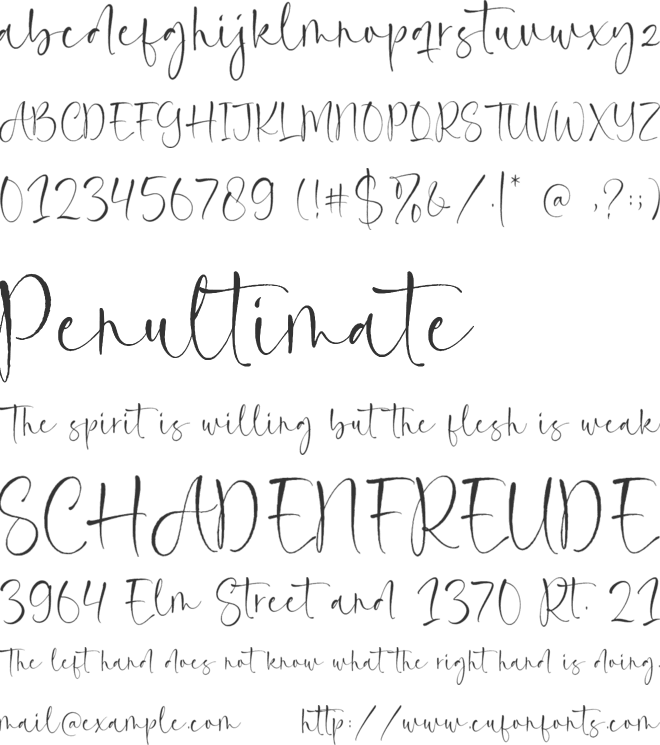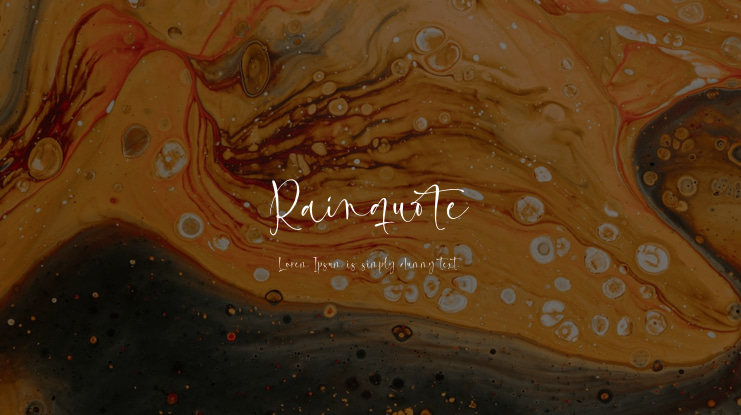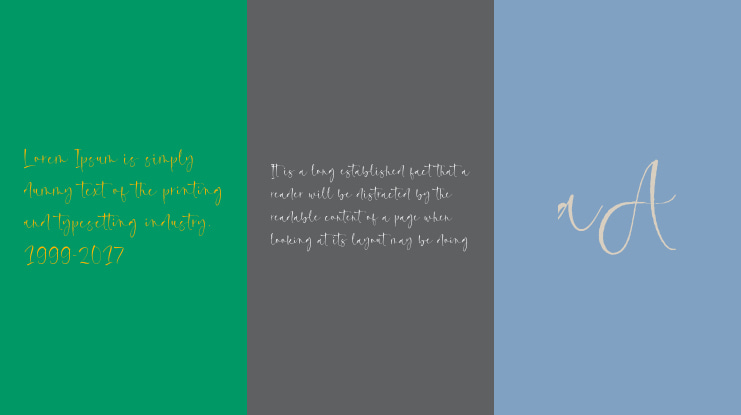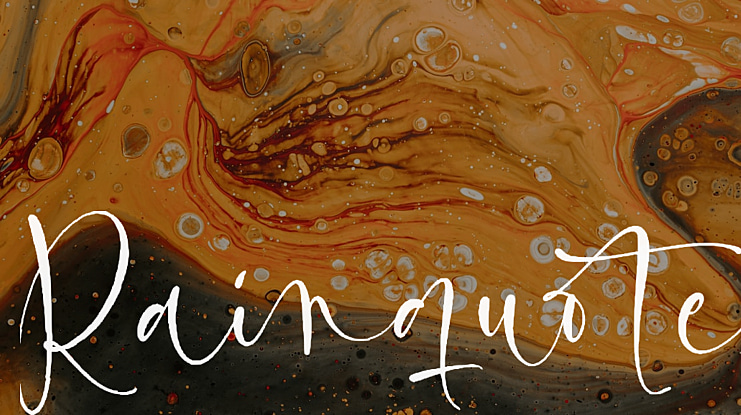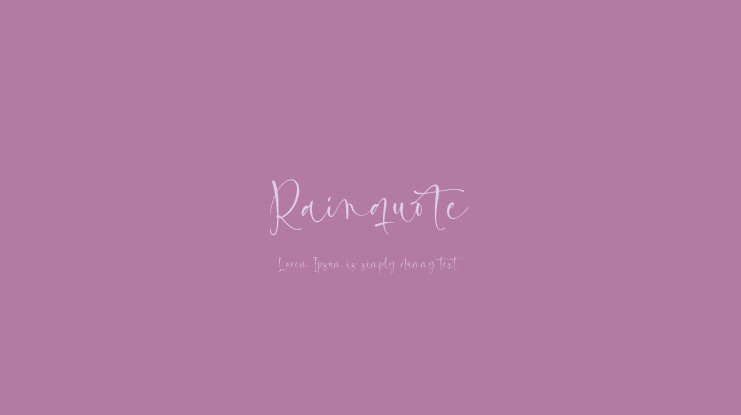
Rainquote Font
Introducing Rainquote, a stunning Modern Calligraphy Font that will add a personal touch to all your design projects! Its natural and organic feel, combined with its unique character, will certainly impress.
Crafted meticulously with care and attention to detail, this font is extremely versatile. It can be utilized for various design projects such as logos, branding, invitations, and so much more. The modern and handwritten style of Rainquote gives it an exceptional character that is bound to leave a lasting impression.